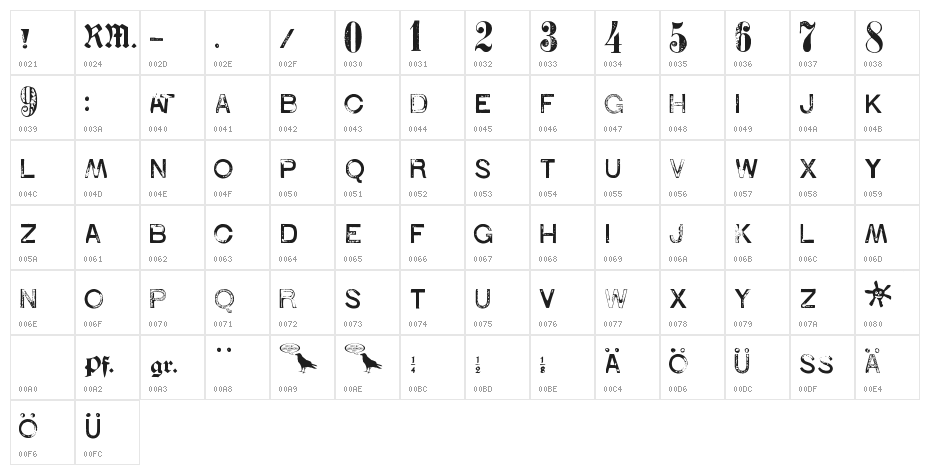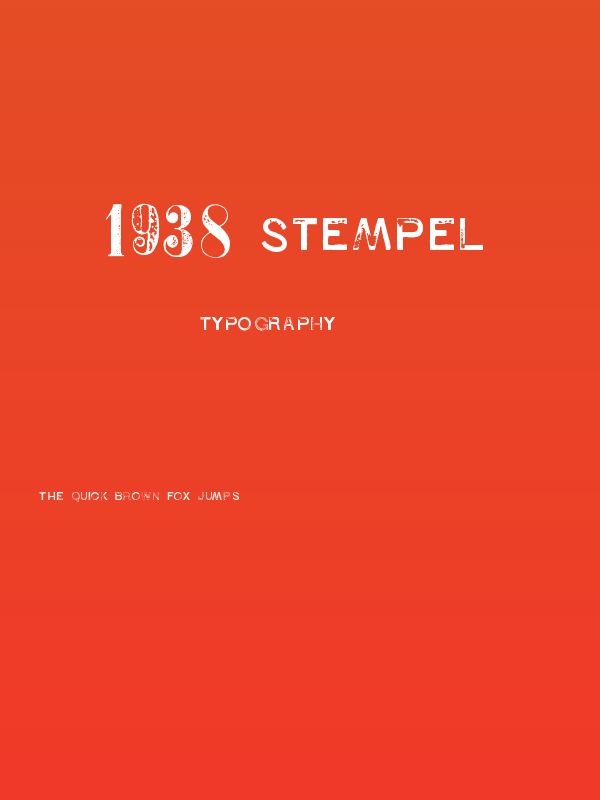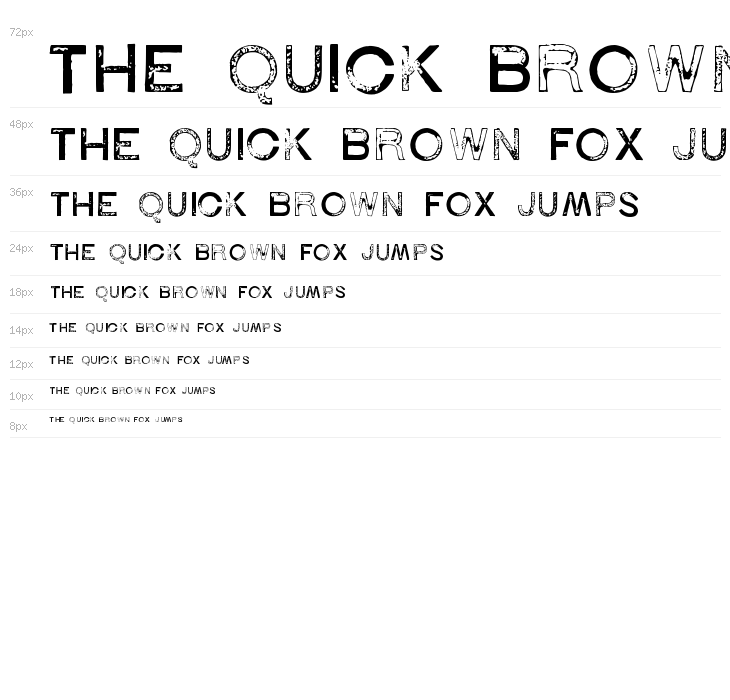
1938 STeMPEL Font
1938 STeMPEL Description
This font features a bold, distressed style with a vintage, industrial feel. The uppercase letters have a rugged texture, giving them a worn, weathered appearance. The numbers are particularly distinctive, with a bold, curvy design that adds a unique flair. Special characters maintain the distressed look, enhancing the overall aesthetic. This font is ideal for projects that require a strong, impactful presence with a touch of nostalgia. Its unique texture makes it stand out, perfect for creating eye-catching designs.